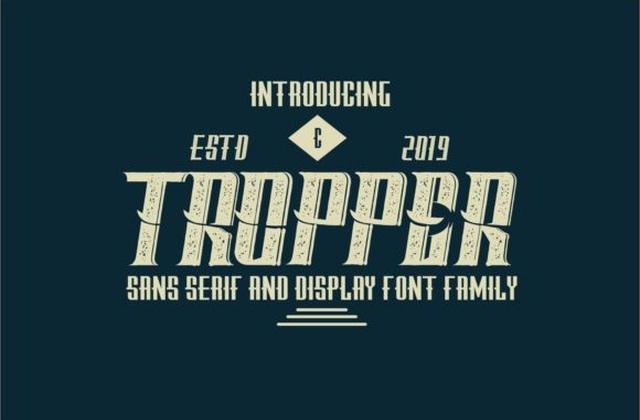
Tropper Family Font
Tropper Family Font is perfect for outdoor adventure branding, hiking gear packaging, camping equipment marketing, wilderness lodge signage, expedition company logos, mountain retreat promotions, survival training materials, and rugged lifestyle merchandise. This adventurous typeface excels in applications where outdoor exploration and wilderness spirit are essential for creating authentic and memorable brand experiences that inspire outdoor adventures.
What makes Tropper Family Font truly exciting is its authentic capture of wilderness exploration spirit and the rugged determination of outdoor adventurers who seek authentic connections with nature. The font features bold, sturdy letterforms with weathered character details and natural imperfections that mirror the enduring quality of well-used hiking boots and trusted outdoor gear. Its adventurous personality and trail-tested reliability create an immediate sense of exploration and outdoor competence that resonates with audiences seeking genuine wilderness experiences. The typeface's rugged charm and expedition-ready design make it perfect for brands wanting to convey adventure, durability, and connection to the transformative power of outdoor exploration.
The Tropper Family Font includes multiple weights and styles designed for versatile outdoor applications, complemented by wilderness-inspired alternates and adventure-themed decorative elements. The font offers comprehensive character sets with outdoor symbols, trail markers, and expedition-friendly styling details that enhance its authentic wilderness aesthetic. Additional graphic elements including mountains, compass points, trail signs, and outdoor motifs provide designers with complete branding tools rooted in hiking culture and wilderness exploration traditions.